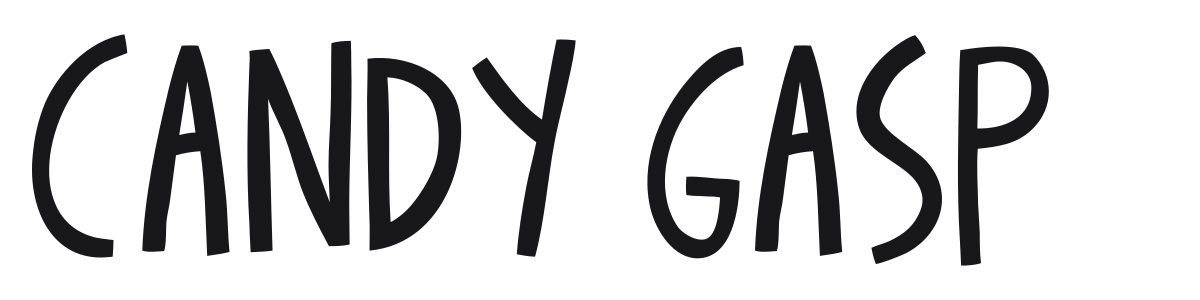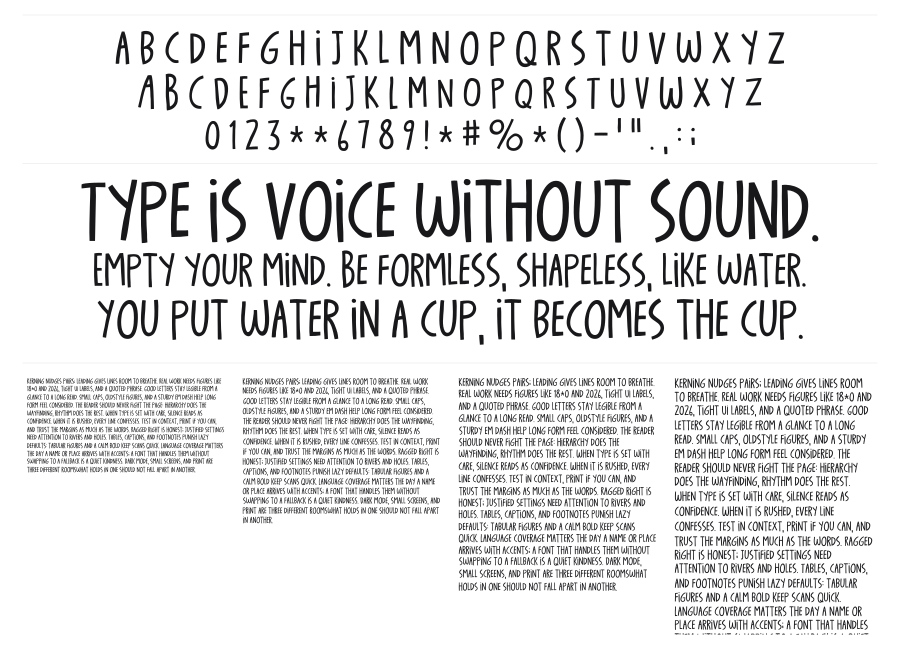
Candy Gasp
Candy Gasp is a casual hand-drawn upright sans with a bouncy, marker-lettered quality. Subtle stroke variation and slightly irregular proportions give each character a lively, organic personality that printed or digital display sizes bring out best. It sits naturally in contexts that want warmth and informality without going full-script.